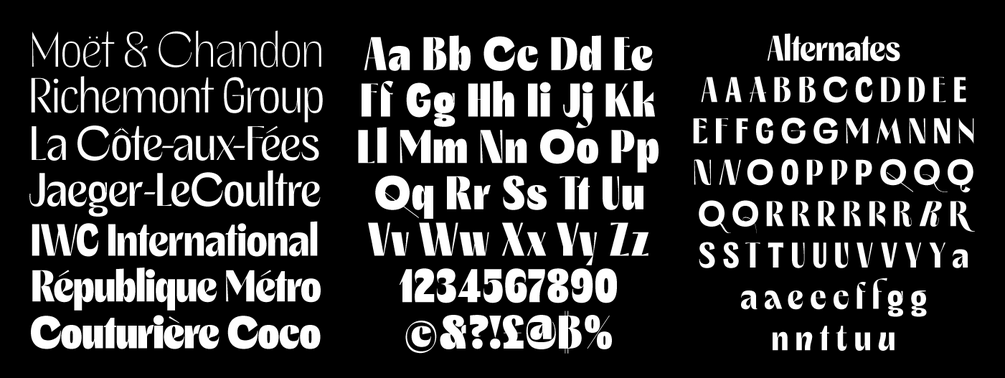
Faroe
Faroe is a contemporary take on the art-nouveau period. Perfect for elegant display projects is has many alternates and ligatures which will help you to create amazing brand materials. It comes in 7 weights and it is perfect for bold branding projects. The variable file is included in the full family desktop pack.